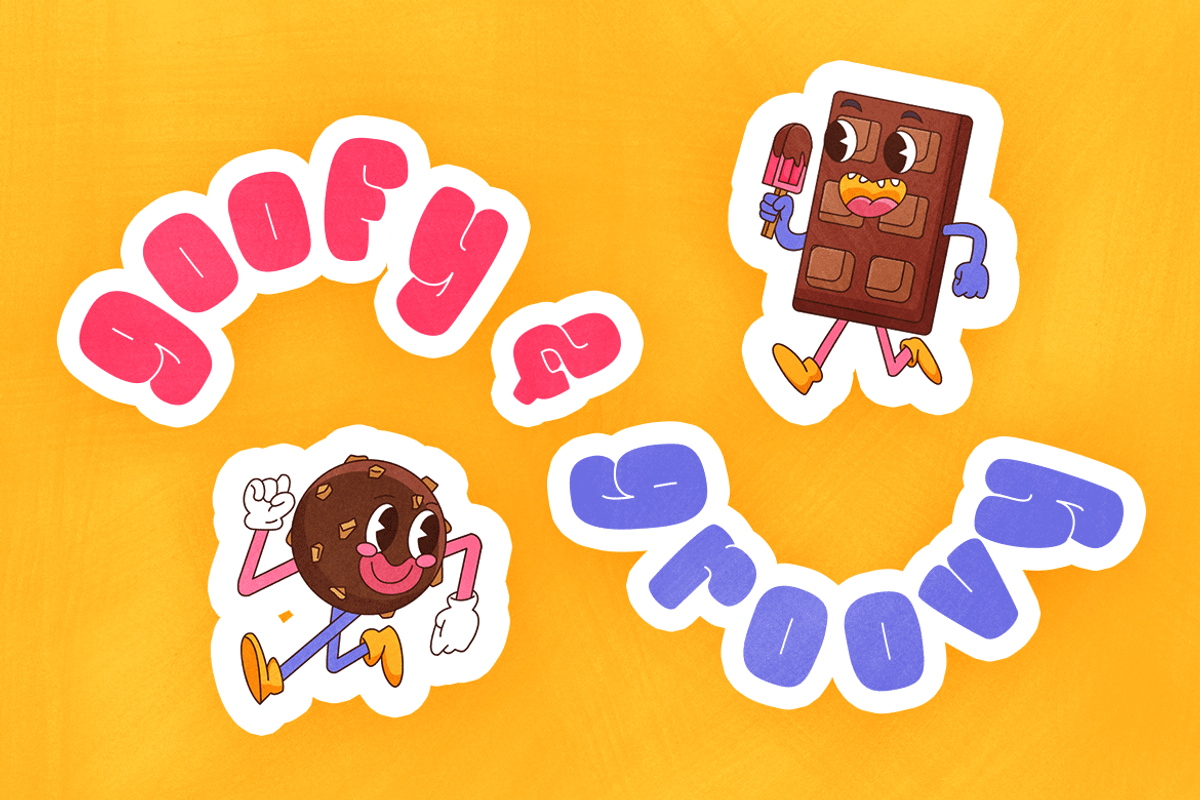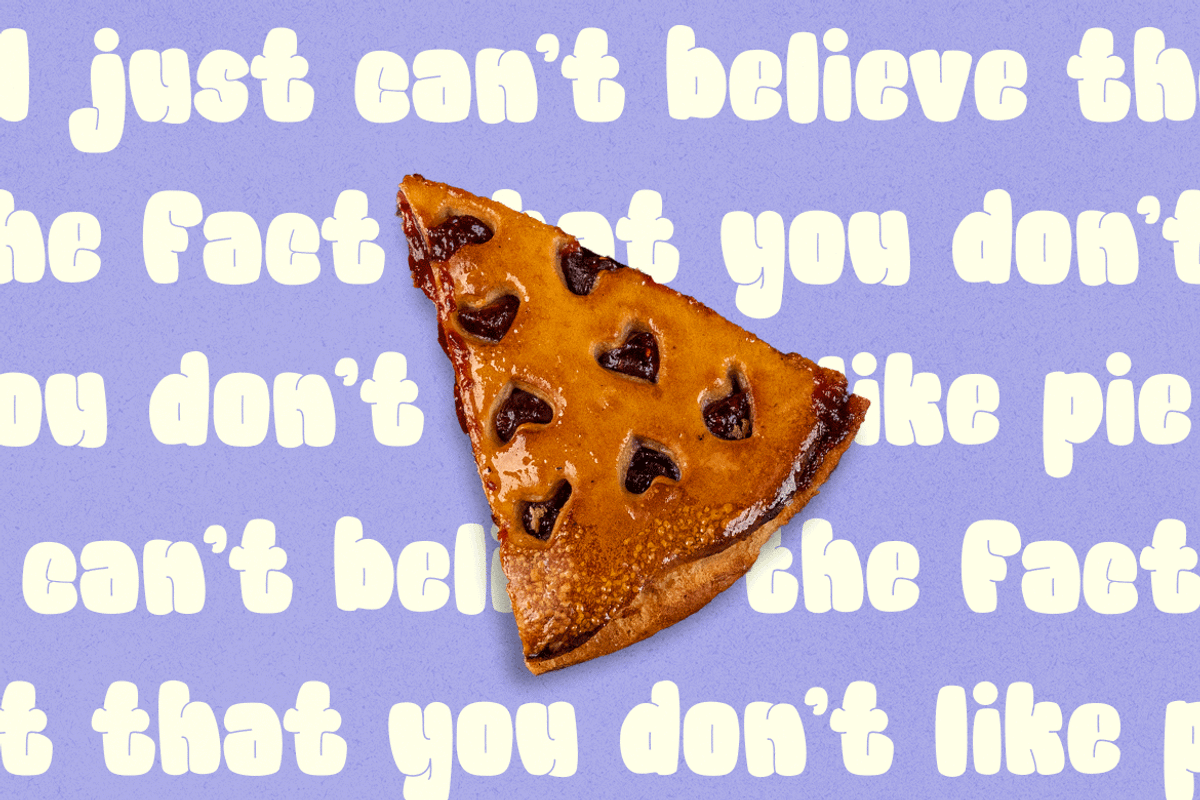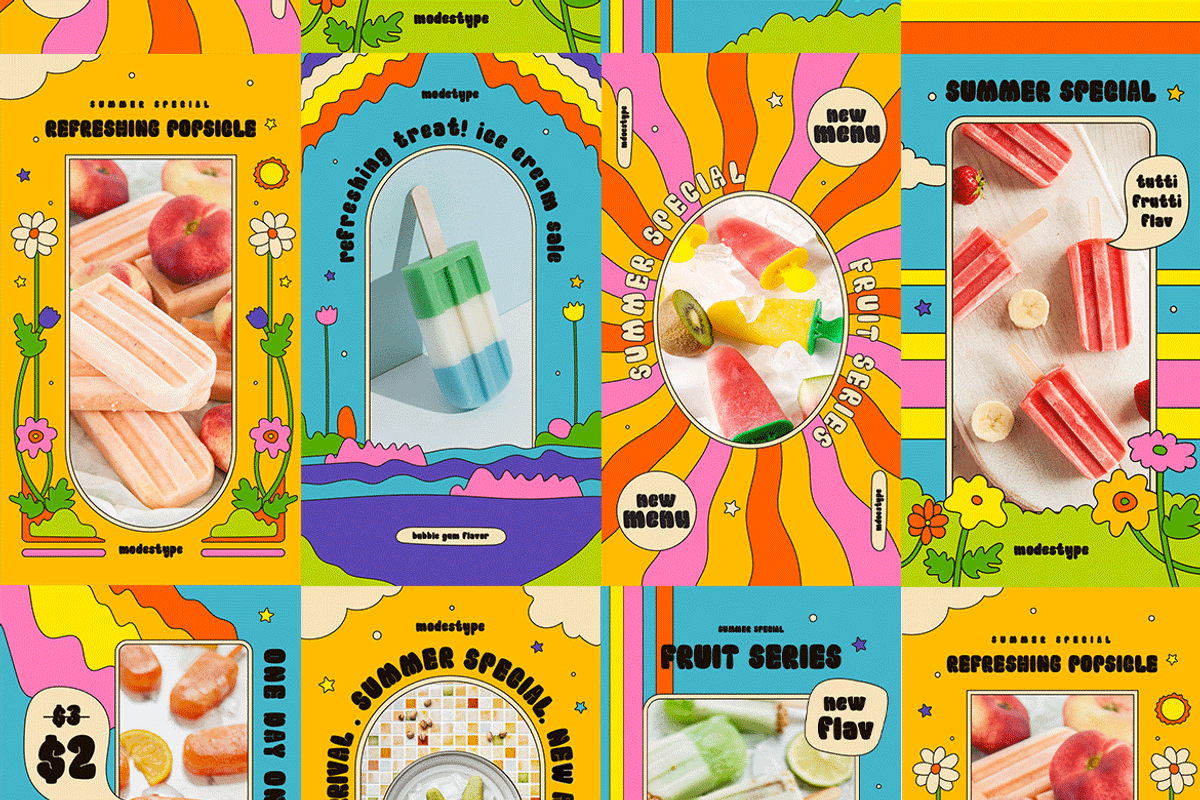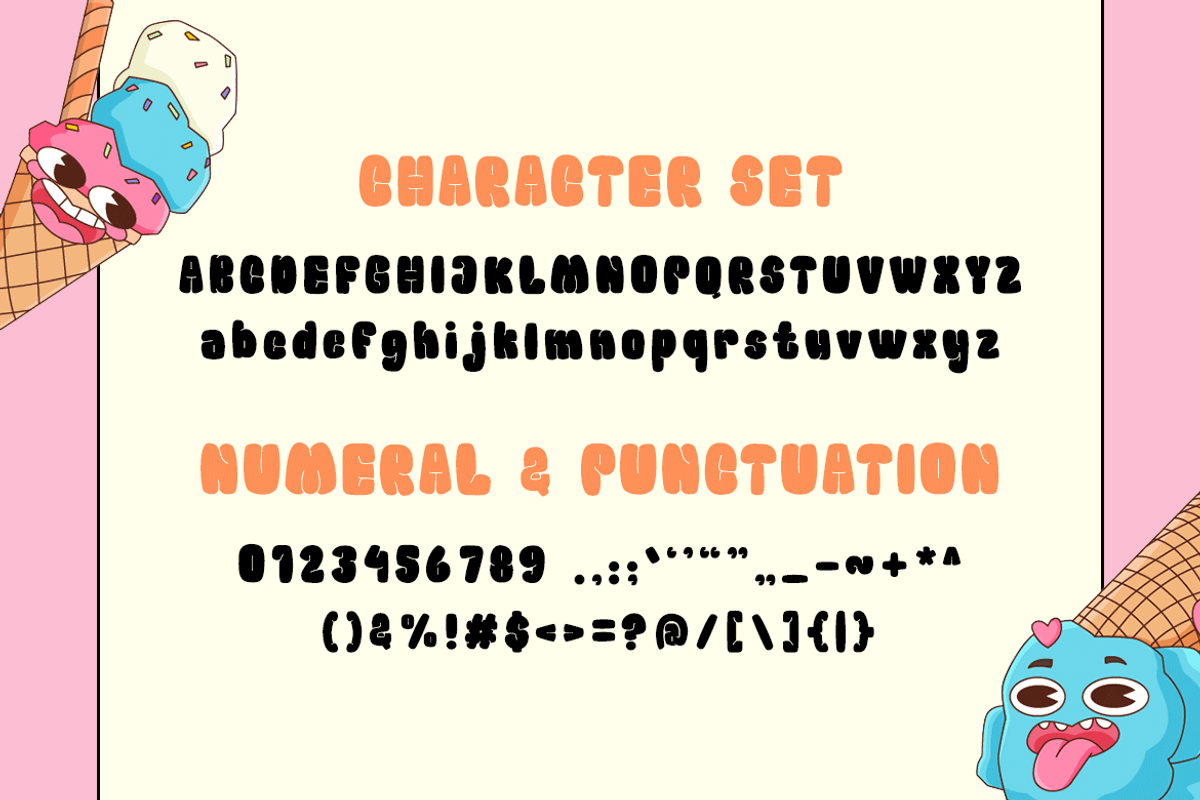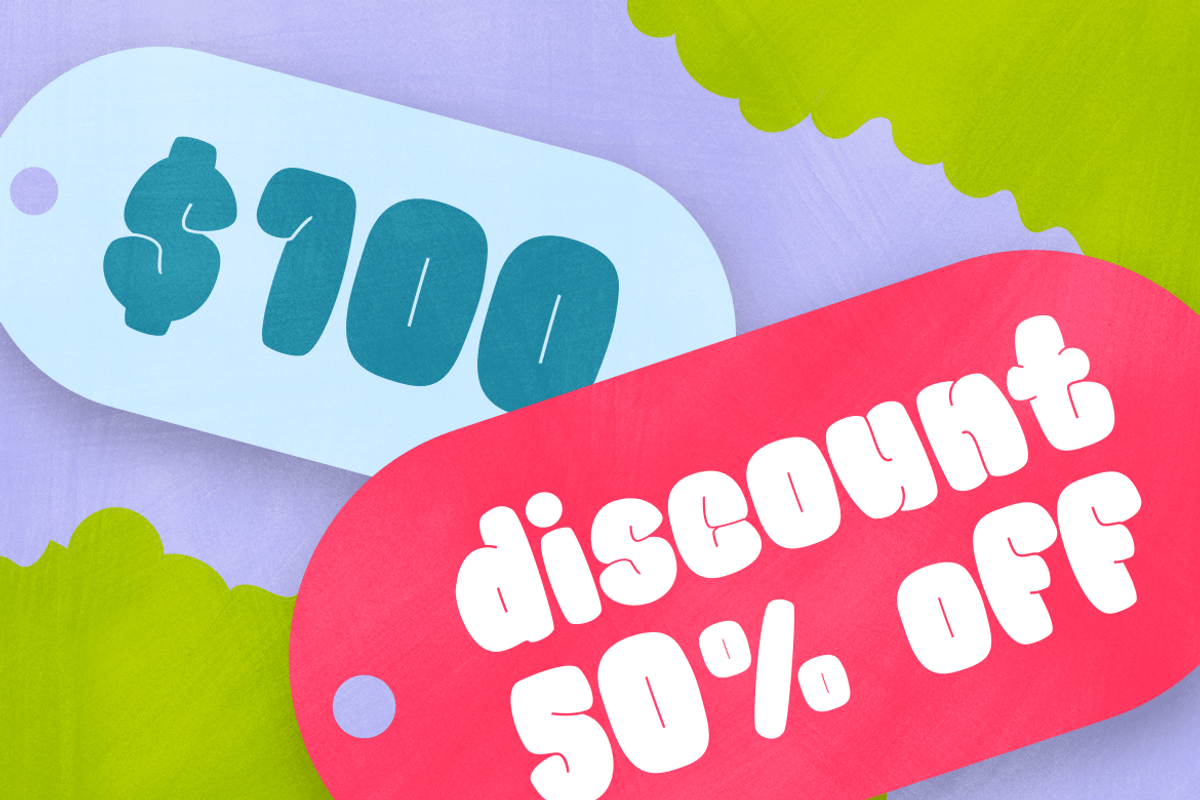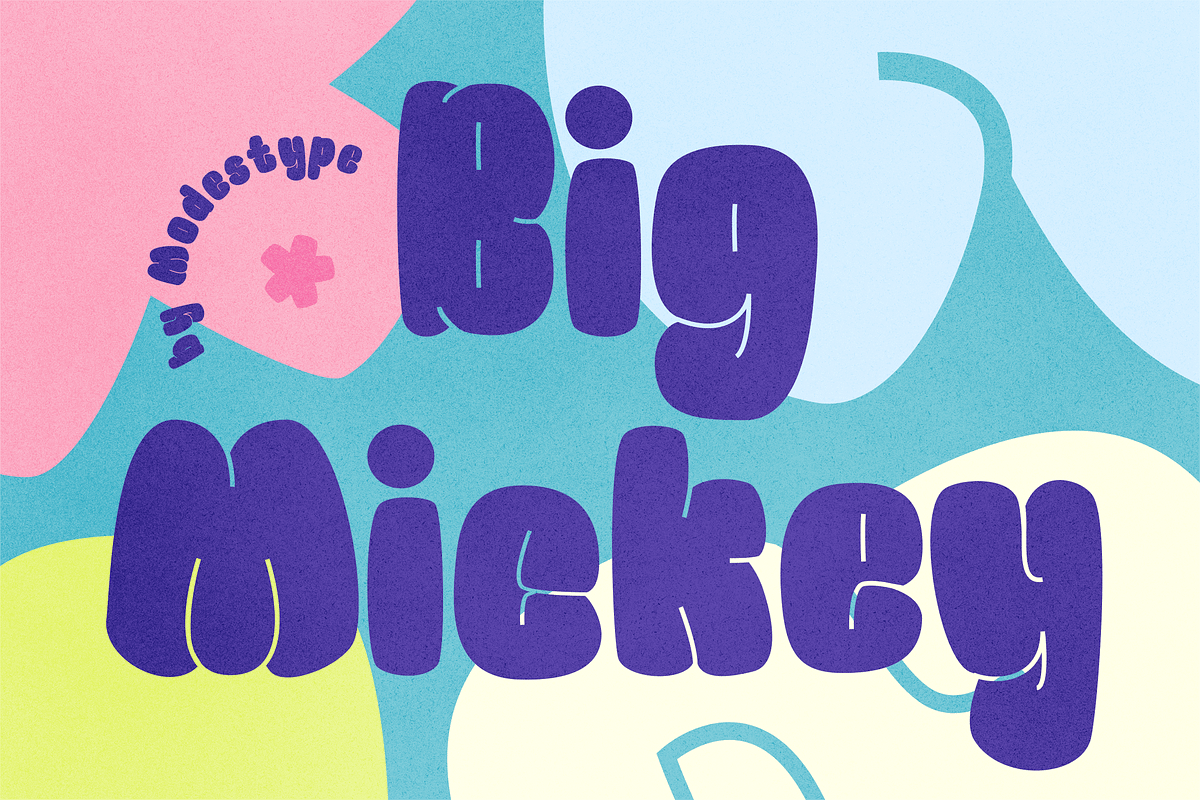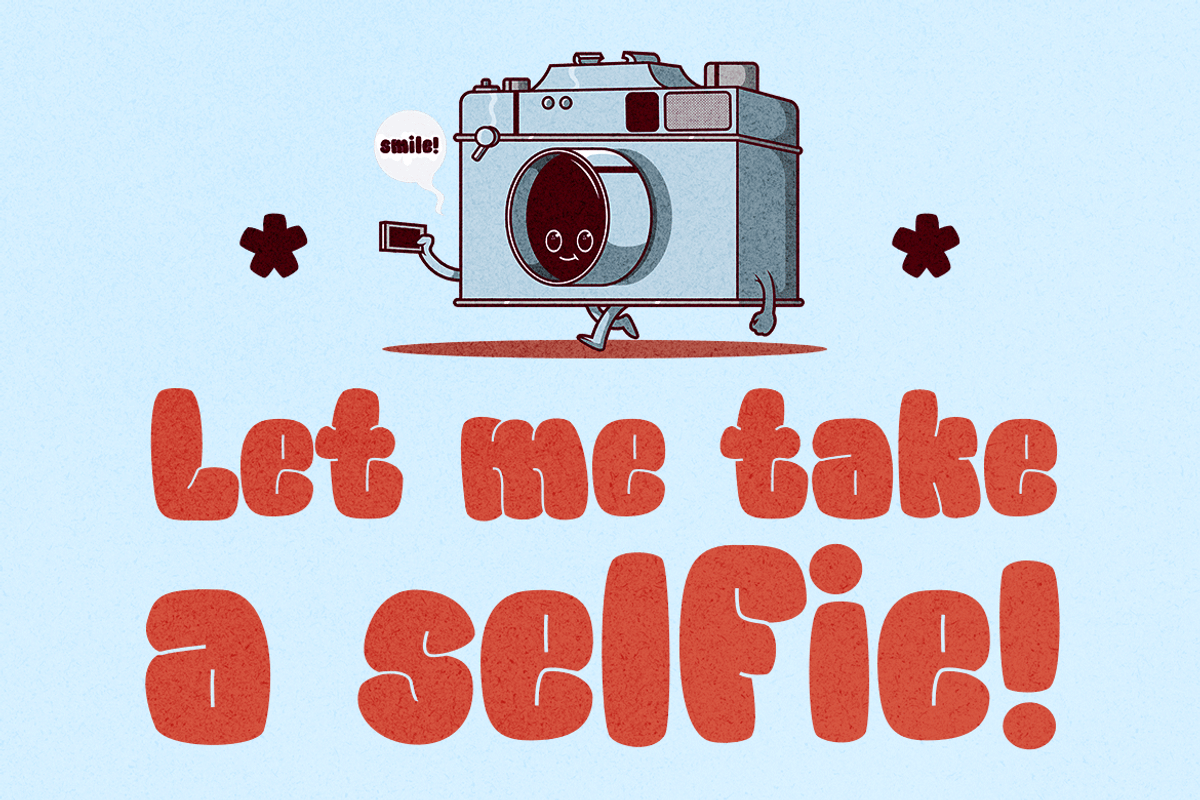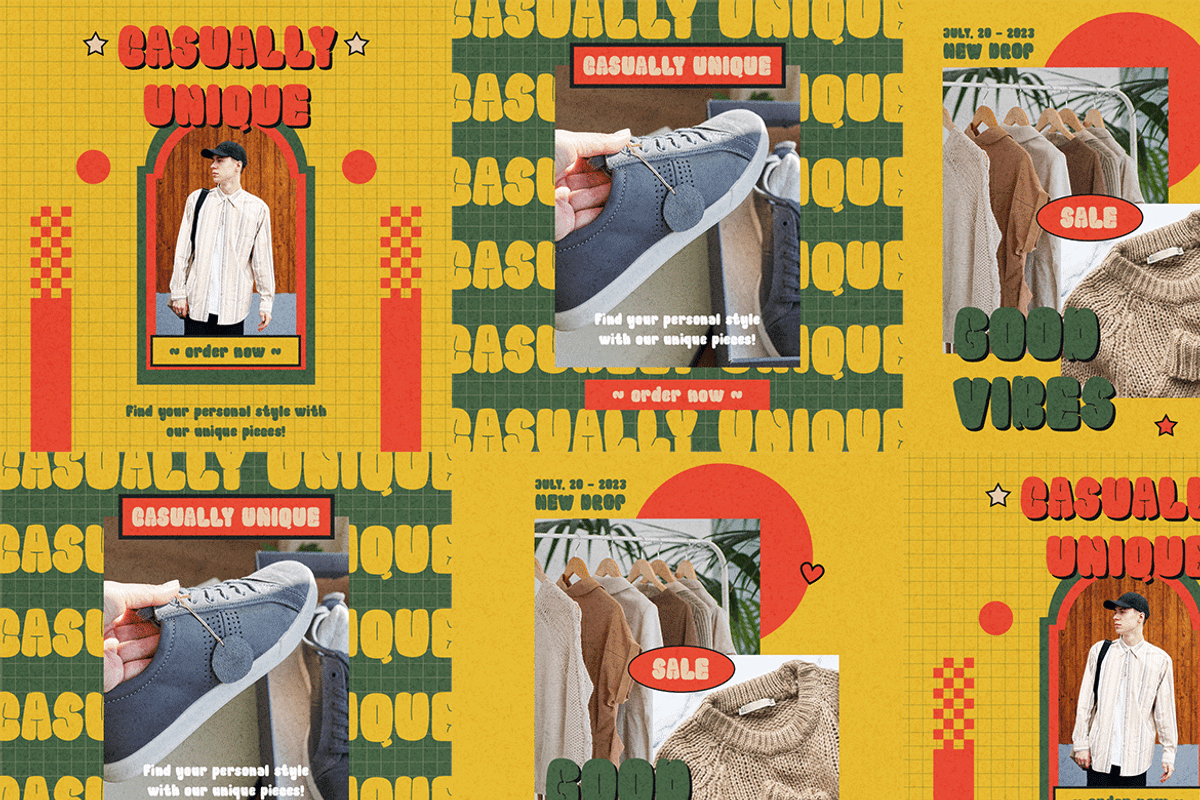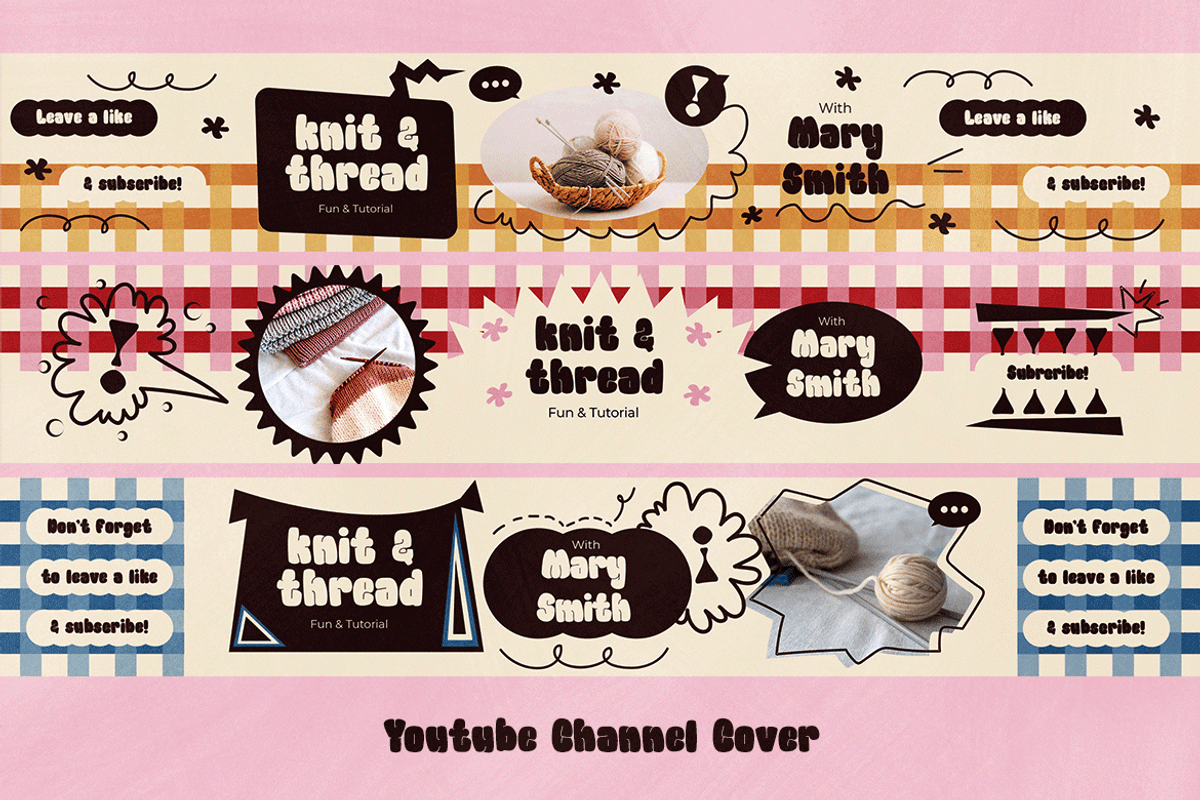
Big Mickey - Goofy & Groovy Font
Big Mickey - Cartoon Font
Bold and chunky, with rounded corner and chubby shapes, Big Mickey will put weight on the funny words written with it.
Suit perfect for cartoon books market, online games, event posters, school supplies font, posters, movie titles, youtube covers, youtube thumbnails, social media page covers, and so on...